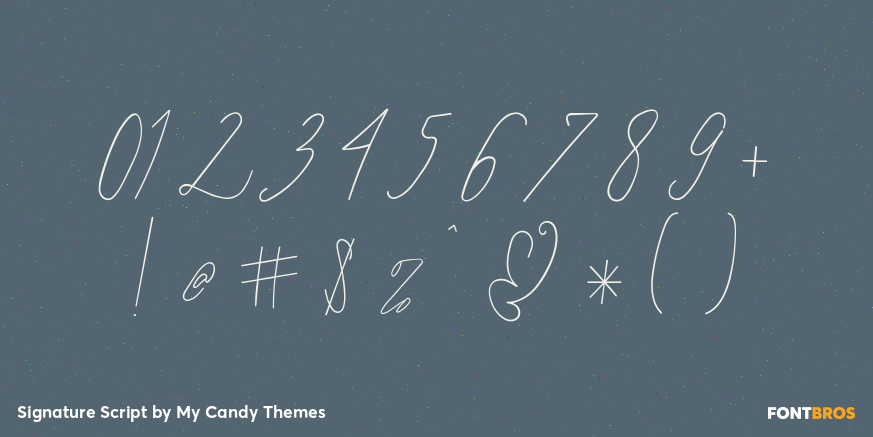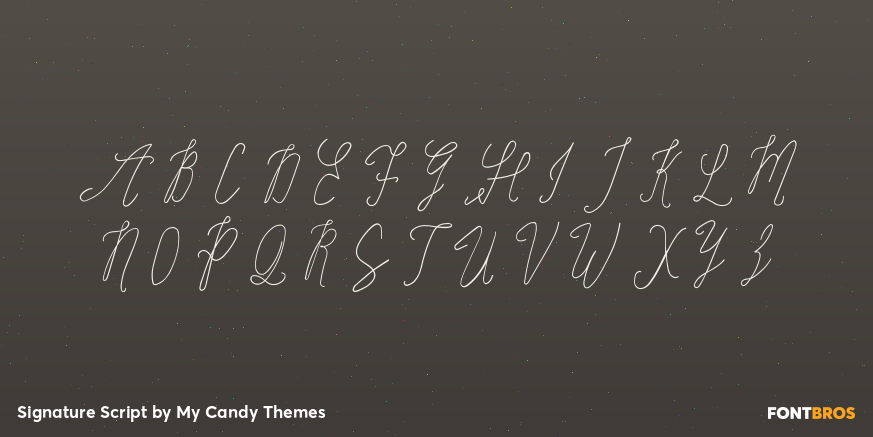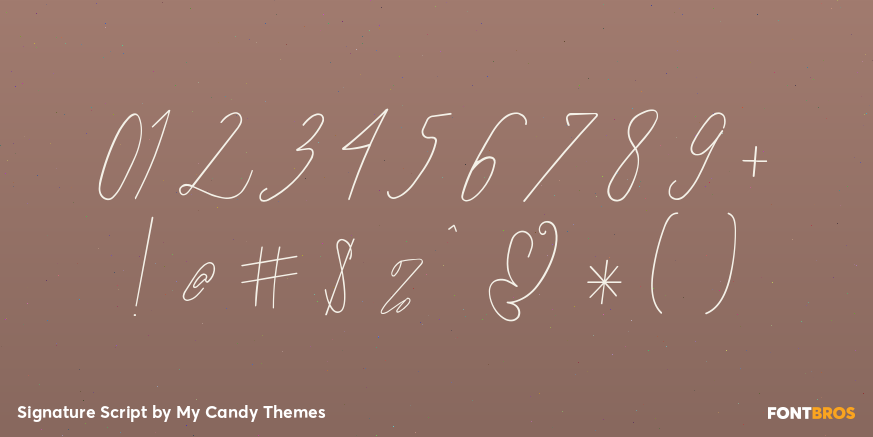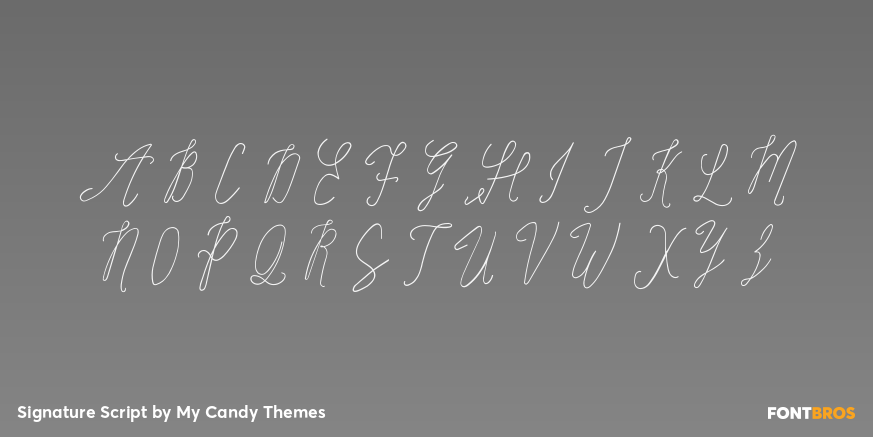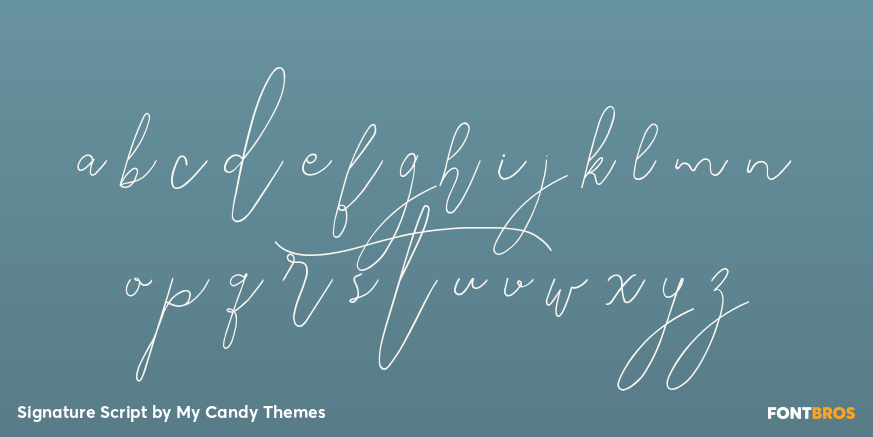
Signature Script
Font Family by My Candy Themes
Signature Script is a modern handwriting font available in 3 weights. 340 glyphs included, suitable for modern branding or logo, online signature, advertising design, posters, blog titles, invitations, and many more applications.